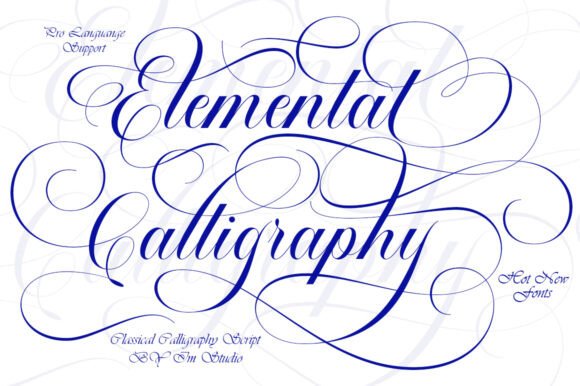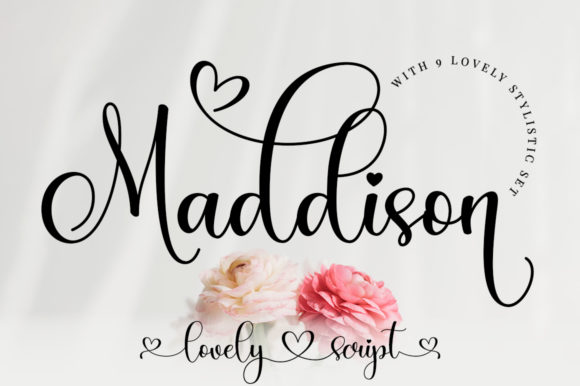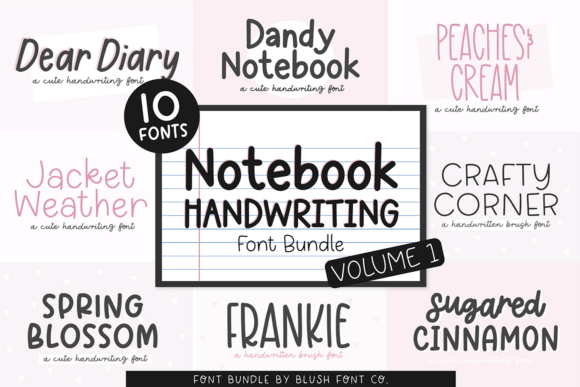
About Lightning Script Font
As a designer, a script font is one of my favorite tools for adding emotion and personality to typography. I use script fonts when I want designs to feel warm, expressive, and human rather than rigid or mechanical. They work beautifully for branding, invitations, planners, packaging, quotes, and social media graphics where tone matters. A good script font flows naturally, feels balanced, and stays readable while still being decorative. What I value most is versatility — the ability to move from elegant and romantic to playful and casual without losing character. Script fonts help my designs feel intentional, personal, and visually engaging.
Understanding Script Fonts
Lightning Script Font
I enjoy using the Lightning Script font when I want my designs to feel personal and expressive. The handwritten style looks natural and artistic, which makes it great for branding, invitations, signs, business cards, and creative quotes. It adds warmth without feeling messy, helping designs feel approachable and human. This font is a great choice when I want to add character quickly and effortlessly.
Mega Notebook Handwriting Bundle Font
I like working with the Mega Notebook Handwriting Bundle because it gives me huge flexibility. With 40 handwriting-style fonts, I can easily match different moods for planners, journals, and digital notebooks. These fonts feel playful, feminine, and creative, especially for apps like GoodNotes. The variety helps me keep designs fresh while maintaining a cohesive handwritten look across projects.
Maddison Font
I love using the Maddison font for romantic and elegant designs. The characters flow beautifully along the baseline, giving it a lively and graceful feel. It works perfectly for wedding projects, quotes, branding, and stationery. The PUA encoding is a big advantage because it makes accessing swashes and glyphs easy, allowing me to customize designs without extra effort.
Elemental Calligraphy Font
I use Elemental Calligraphy when a project needs refinement and luxury. The blend of classic copperplate influence with a modern touch makes it feel timeless yet fresh. I like how smooth and readable it is, even with decorative details. This font works beautifully for weddings, beauty brands, packaging, menus, book covers, and editorial layouts where elegance really matters.
Photography Font Font
Photography Font
I enjoy using the Photography Font for clean, modern branding. Its simple lines and balanced structure make it ideal for watermarks, logos, websites, and photography portfolios. It doesn’t distract from images but instead complements them, helping visuals feel polished and professional. This font is perfect when I want typography to support the story without overpowering it.
In conclusion, script fonts play a key role in creating designs that feel expressive and memorable. From a designer’s perspective, they bring warmth, movement, and personality that other font styles often can’t. When chosen thoughtfully, script fonts balance beauty and readability, enhancing the message rather than distracting from it. They help designs feel personal, refined, and emotionally connected, leaving a lasting impression.